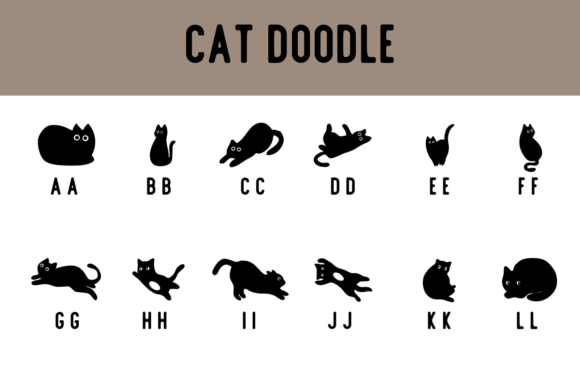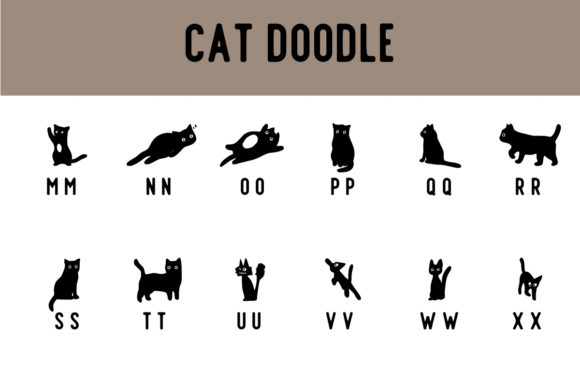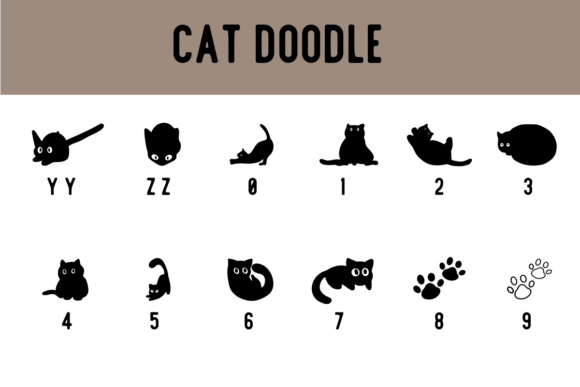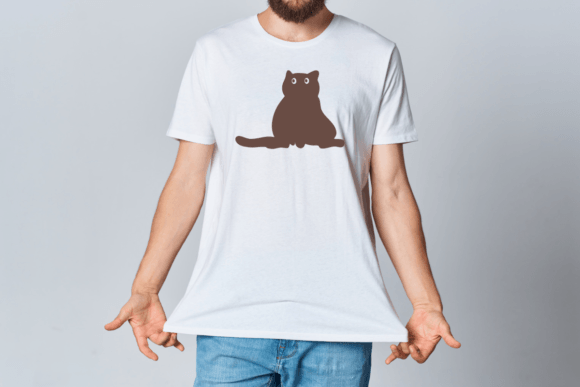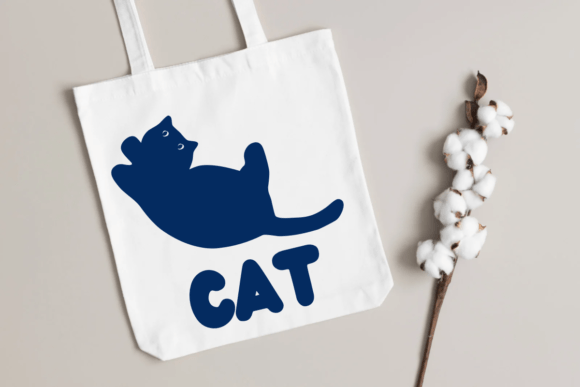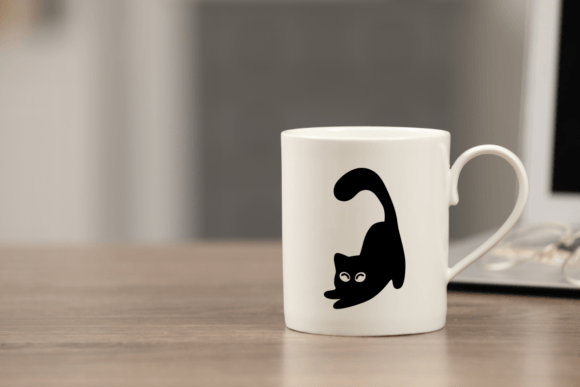
Introducing Cat Doodle Font: The Purrfect Addition to Your Creative Projects
Are you a designer, crafter, or DIY enthusiast looking for a unique and playful font to add a touch of whimsy to your creative projects? Look no further than Cat Doodle Font, a delightful dingbats font featuring a cat sketch themed style. In this article, we’ll explore the features and benefits of Cat Doodle Font, and how it can enhance your wedding invitations, DIY projects, crafts, decorations, logos, and many other creative ideas.
What is Cat Doodle Font?
Cat Doodle Font is a dingbats font that showcases a charming cat sketch theme. The font is designed to resemble hand-drawn doodles, giving it a friendly and approachable feel. The cat-themed illustrations are meticulously crafted to bring a smile to your face, making it perfect for projects that require a lighthearted and playful touch.
Key Features of Cat Doodle Font
- Unique and Playful Design: Cat Doodle Font boasts a distinctive and charming design that will add a touch of personality to your projects.
- Dingbats Font Style: The font features a dingbats style, which means it’s comprised of illustrations and symbols rather than traditional alphabet characters.
- Cat Sketch Theme: The font’s cat sketch theme is perfect for cat lovers and those who want to add a touch of feline charm to their projects.
Creative Ways to Use Cat Doodle Font
Cat Doodle Font is an incredibly versatile font that can be used in a wide range of creative projects. Here are some ideas to get you started:
- Wedding Invitations: Add a touch of whimsy to your wedding invitations with Cat Doodle Font’s adorable cat illustrations.
- DIY Projects: Use Cat Doodle Font to create custom labels, cards, and decorations for your DIY projects.
- Crafts: Incorporate Cat Doodle Font into your craft projects, such as knitting patterns, embroidery designs, or scrapbooking.
- Decorations: Create custom signs, banners, and wall art using Cat Doodle Font to add a playful touch to your home decor.
- Logos and Branding: Use Cat Doodle Font to create a unique and memorable logo for your business or brand.
Tips and Tricks for Using Cat Doodle Font
To get the most out of Cat Doodle Font, here are some tips and tricks to keep in mind:
- Experiment with Colors: Cat Doodle Font looks great in a variety of colors, so don’t be afraid to experiment and find the perfect hue for your project.
- Mix and Match: Combine Cat Doodle Font with other fonts and illustrations to create a unique and eye-catching design.
- Pay Attention to Scale: Make sure to adjust the font size to fit your project’s needs, as the illustrations can be used in various sizes.
Cat Doodle Font is a delightful and versatile font that’s perfect for designers, crafters, and DIY enthusiasts. With its unique and playful design, cat sketch theme, and dingbats font style, it’s an excellent addition to any creative project. Whether you’re working on wedding invitations, DIY projects, crafts, decorations, logos, or other creative ideas, Cat Doodle Font is sure to bring a touch of whimsy and charm. So why not give it a try and see how it can enhance your next project?